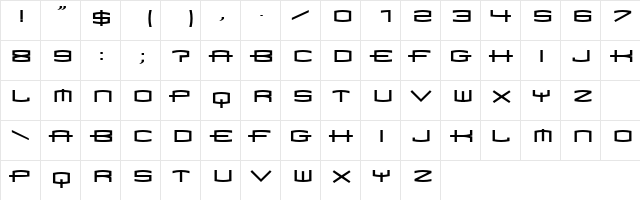
tsp 1979 1 Regular
Design Context for tsp 1979 1 Typeface
tsp 1979 1 takes a measured approach to typography — its balanced proportions and neutral character make it a reliable workhorse for both digital and print work.
Pro Tip: Use tsp 1979 1 in both headline and body roles to test its range before committing to a single application.